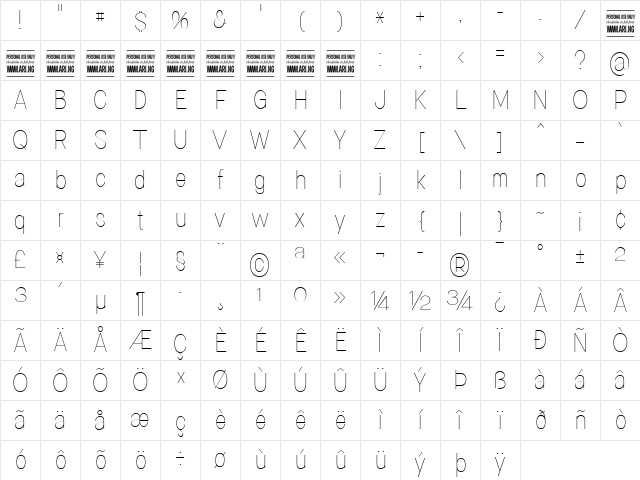
Specify PERSONAL Condensed is a composed and adaptable typeface that performs quietly and consistently across a wide range of design contexts. Its slender proportions lend an understated elegance to any composition. Its narrow stance lets it pack a punch even in space-constrained designs.